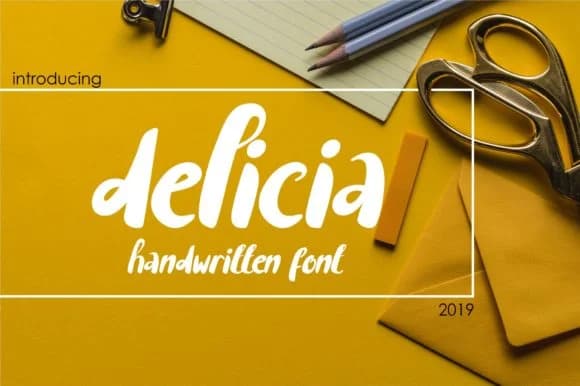
Imagine designing a wedding invitation suite where every word feels personally written, each line carrying genuine warmth. That's where Delicia Font by pandastock shines. This handwritten script brings authenticity without sacrificing clarity, making it ideal for wedding invitation suites, boutique packaging labels, and custom greeting cards that demand genuine character and personality.
The font's loose, natural strokes work beautifully on restaurant menus and DIY craft signage, where a homemade quality actually builds trust and connection. Because of its moderate weight and balanced flow, Delicia reads clearly at larger sizes, which matters when you're printing business cards, event posters, or decorative wall art. In digital contexts, the font performs equally well: social media graphics feel organic without losing impact, personalized stationery designs gain warmth, and even short passages of body text on web projects maintain readability.
What makes Delicia different is how it avoids the stiffness that often plagues script fonts. The letterforms maintain their hand-drawn character across all sizes while staying legible. It's simple enough to work across diverse design contexts yet distinctive enough to give projects their own voice. Find Delicia on Creative Fabrica and bring that human touch to your next design.
- Elegant, Flowing, Delicia
Delicia Font is a script font that shines as a display or heading face. Pair it with a clean sans-serif or serif font for body text β the contrast creates a clear hierarchy while the two styles stay balanced and easy to read.
Delicia Font